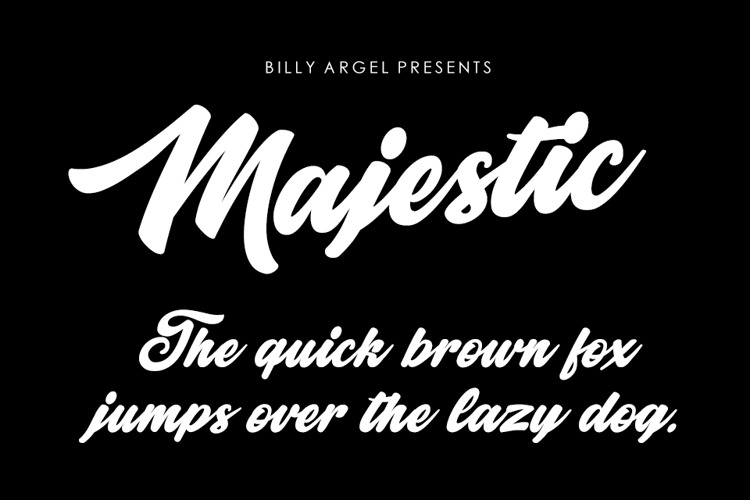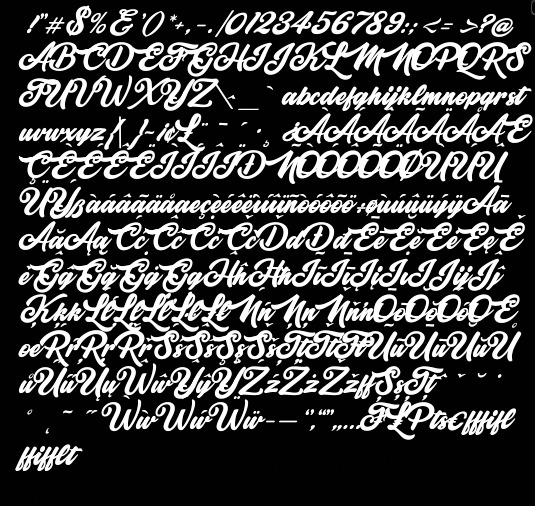
Majestic Script Font is a romantic feminine typeface that simulates carefull handwritten lettering. But at the same time it has impeccable quality and the absence of any excesses. With this font your disign will look delicate and elegant! Majestic comes with uppercase, lowercase, standard punctuation and special letters for most of the European languages.